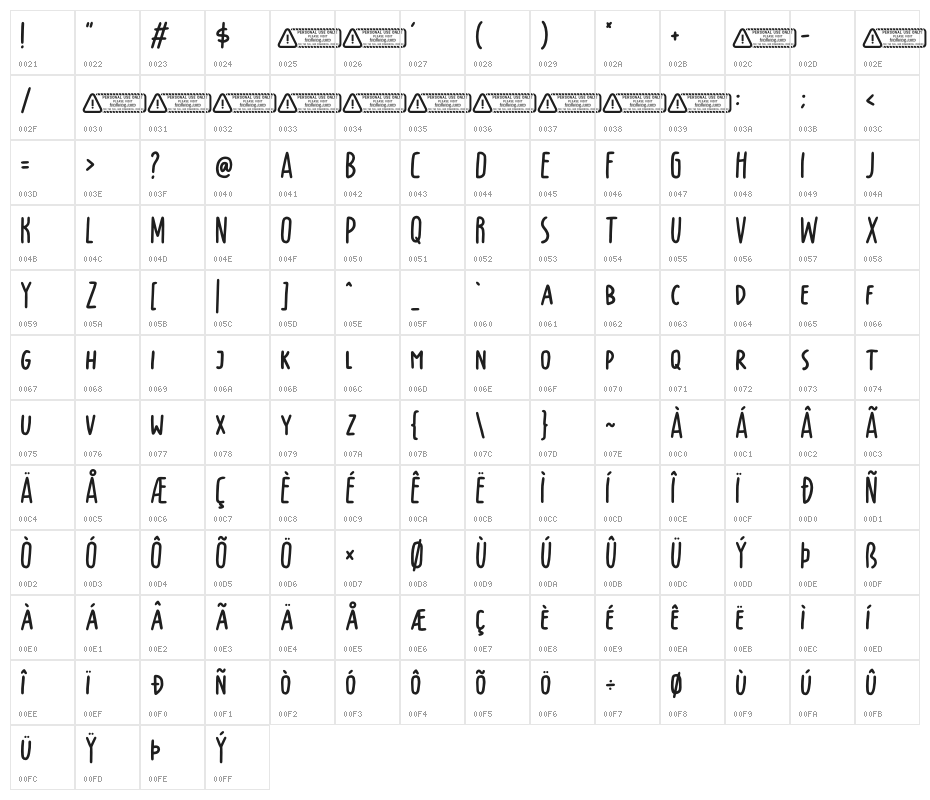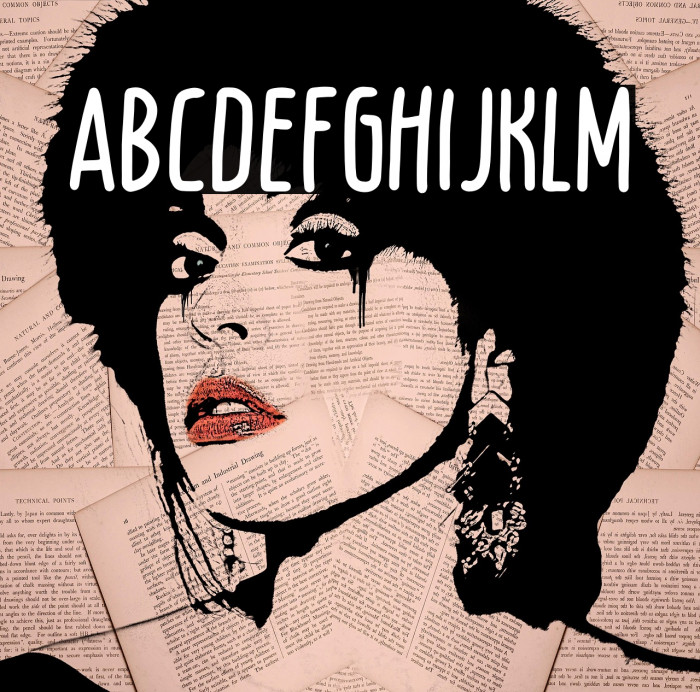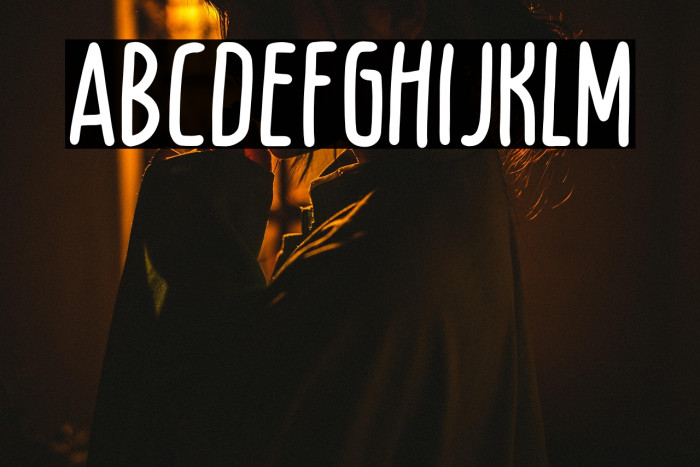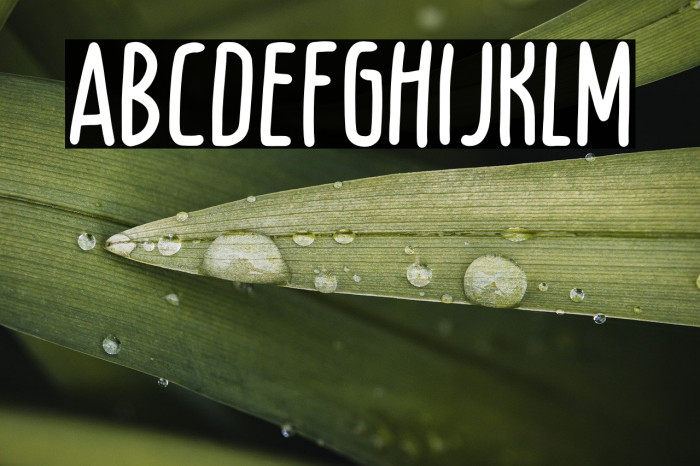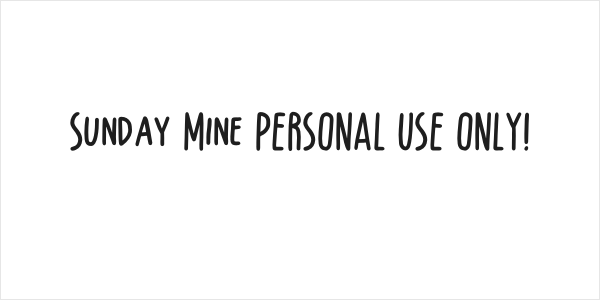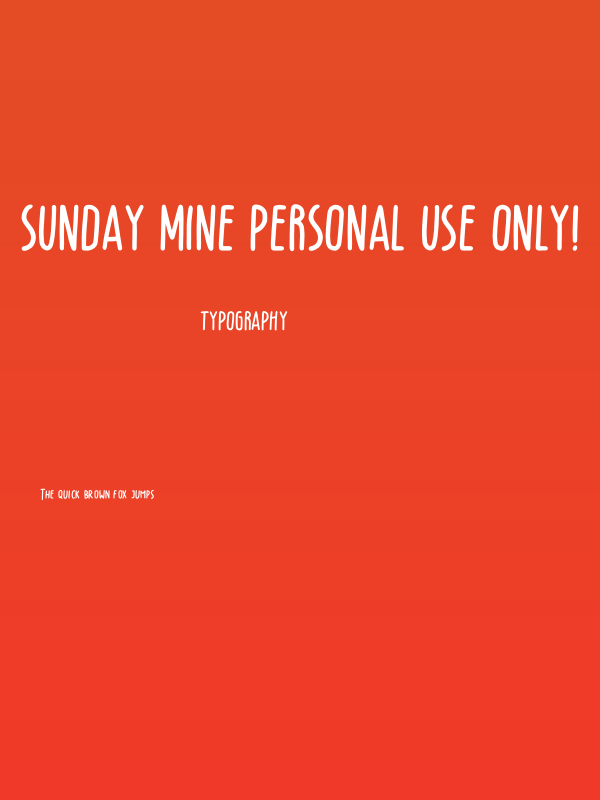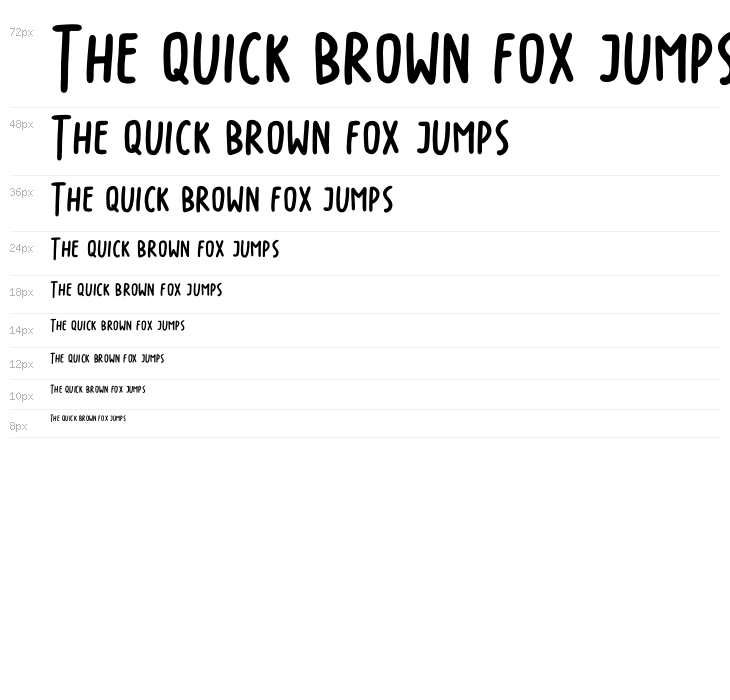
Sunday Mine PERSONAL USE ONLY! Font
Sunday Mine PERSONAL USE ONLY! Description
This font features a playful and casual handwritten style, characterized by its smooth, rounded edges and slightly irregular letterforms. The uppercase letters are tall and narrow, while the lowercase letters maintain a consistent height, creating a harmonious balance. The font's overall appearance is friendly and approachable, making it suitable for informal and creative projects. The characters are evenly spaced, ensuring readability, and the strokes have a consistent medium weight, providing a uniform look across all letters. The font includes a full set of uppercase and lowercase letters, numbers, and a selection of special characters, enhancing its versatility.
| Use Case | Logos, Headlines, Informal Text |
| Proposed Projects | Ideal for greeting cards, children's books, casual branding, and social media graphics. |